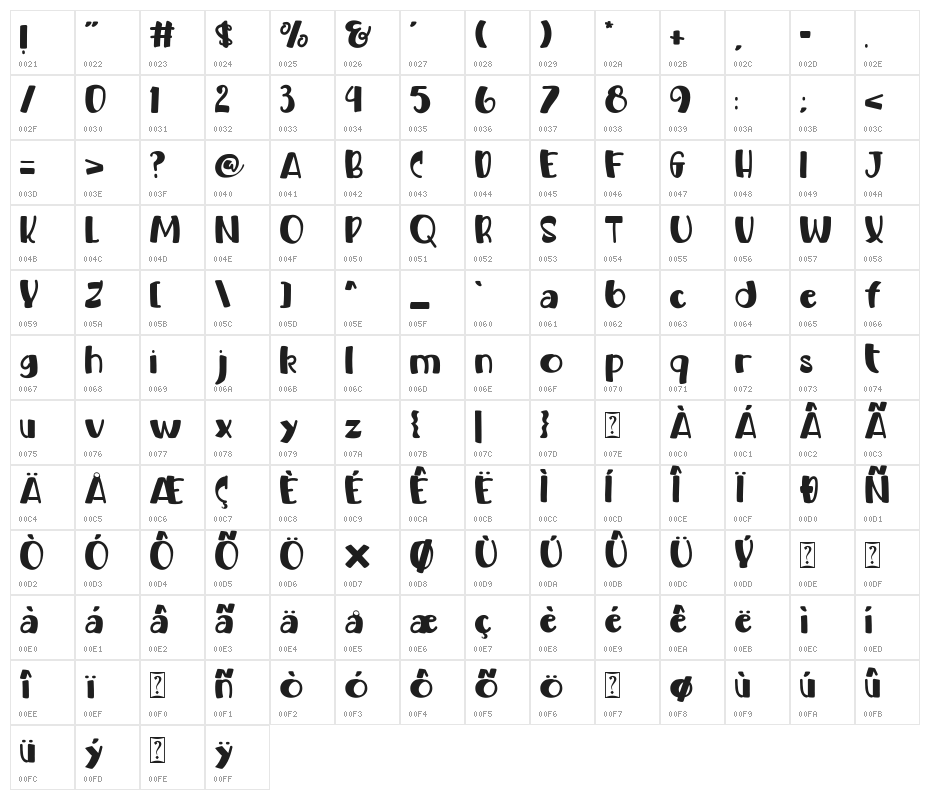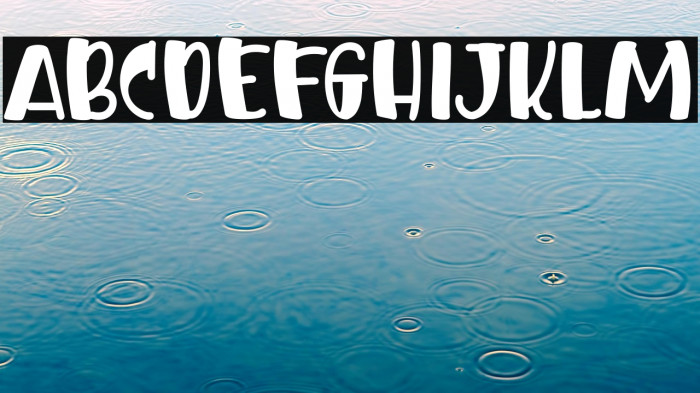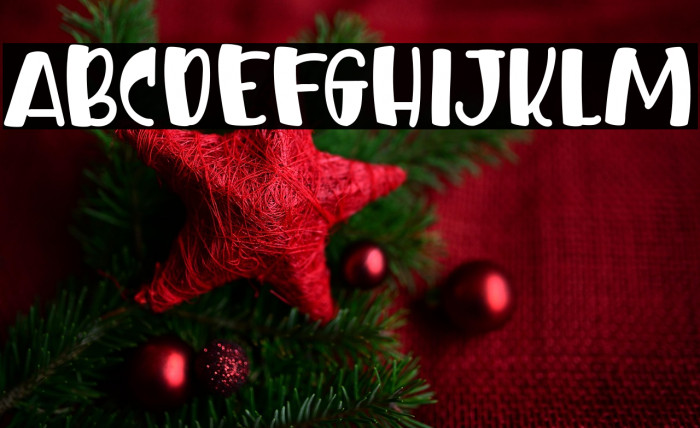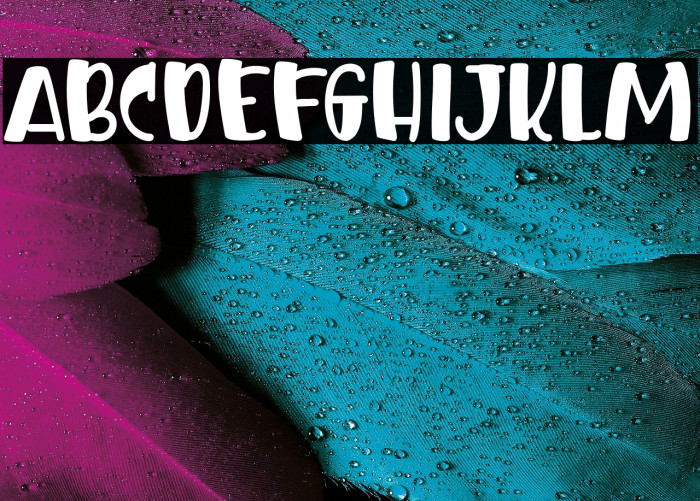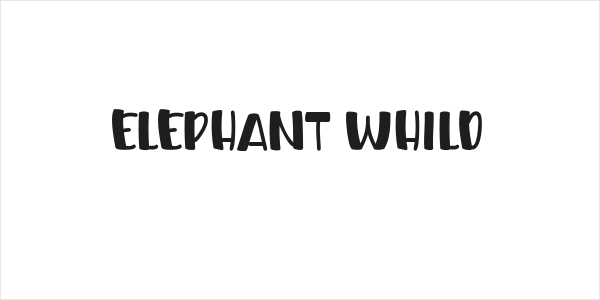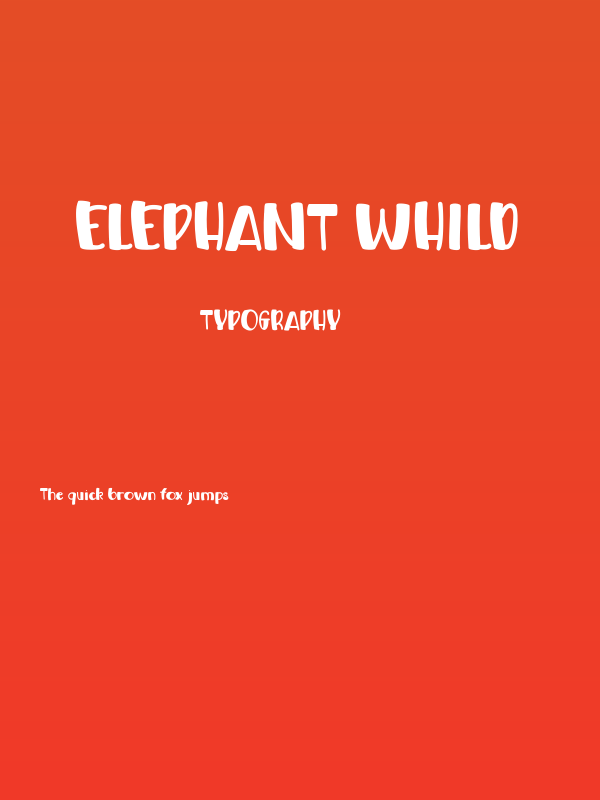
ELEPHANT WHILD Font
ELEPHANT WHILD Description
This font exhibits a playful and bold character with its thick, rounded strokes and slightly irregular shapes. The letters have a whimsical, almost hand-drawn quality, making them stand out with a friendly and approachable vibe. The uppercase and lowercase letters maintain a consistent style, with the uppercase being slightly more pronounced. Numbers and special characters follow the same design ethos, ensuring uniformity across all glyphs. The overall appearance is both fun and dynamic, suitable for projects that require a touch of creativity and informality.
Overall StylePlayful, Whimsical
Proposed ProjectsIdeal for children's books, playful branding, posters, and creative invitations.